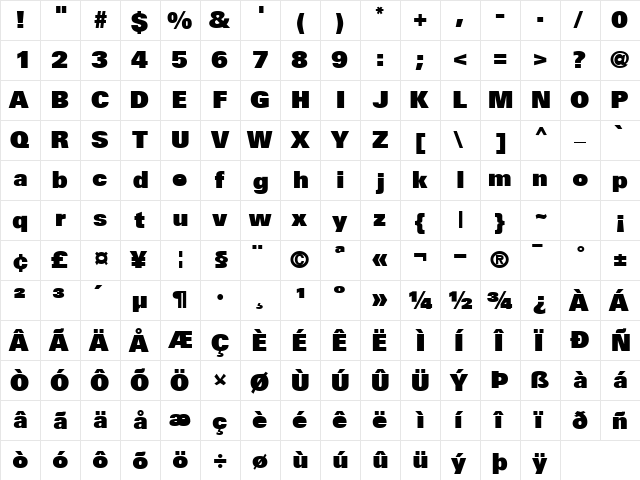
NovaUltraSSK Regular
Design Context for NovaUltraSSK Typeface
NovaUltraSSK offers clean, dependable letterforms without strong stylistic allegiance, making it a practical choice for designers who need flexibility.